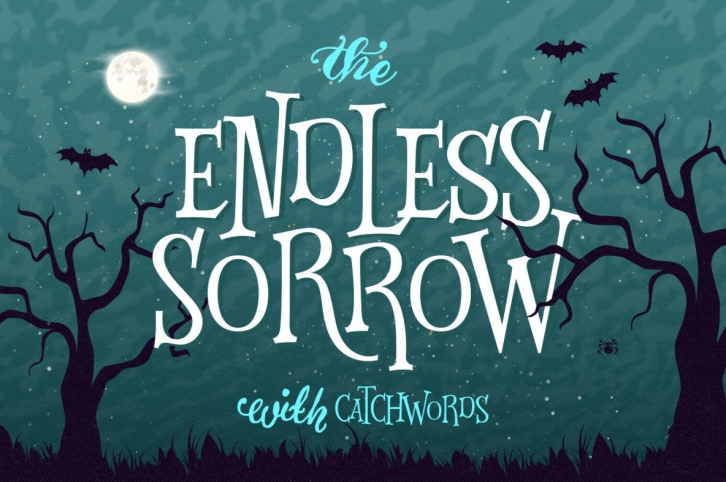
Endless Sorrow is an all-caps versatile display font inspired by vintage typography that usually shown on the poster, book and CD cover. The irregular height of the font clearly represents the feeling of hand-drawn and humanist. You can use it for your next handcrafted projects: poster, flyer, banner, illustration, cover, etc.
Along with the regular Endless Sorrow font, you'll also get a bunch of catchwords as a bonus, which you can combine together with the regular font to get more variation for your design.